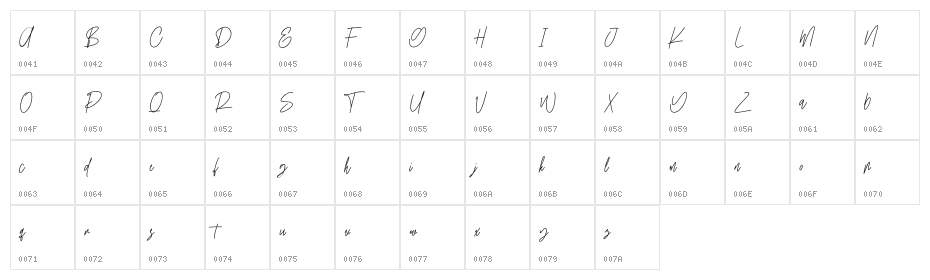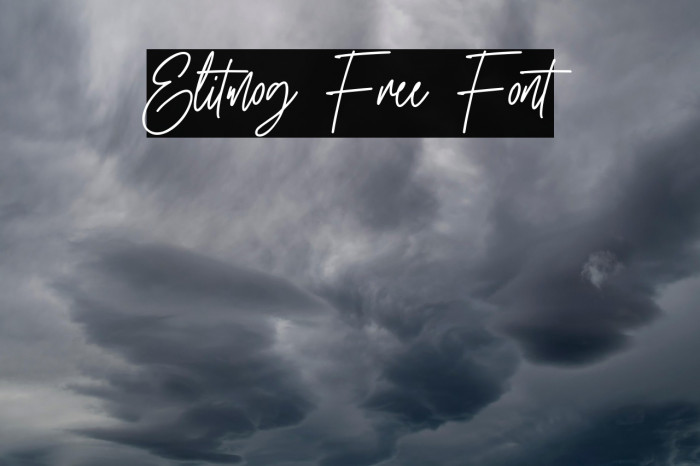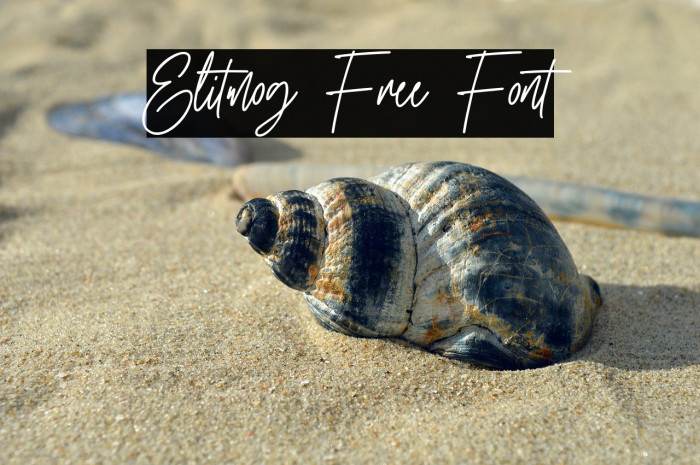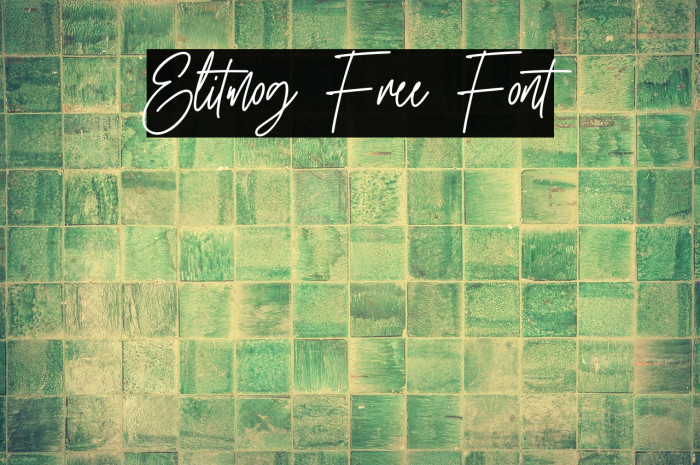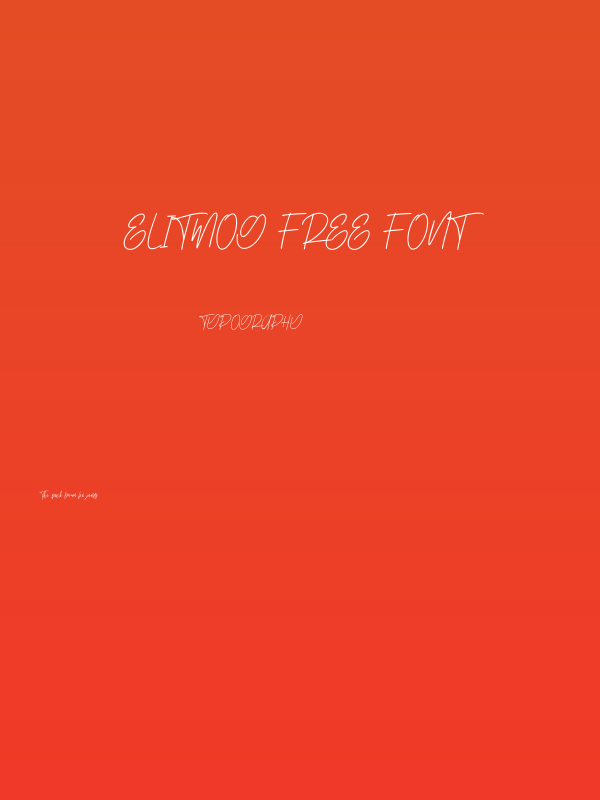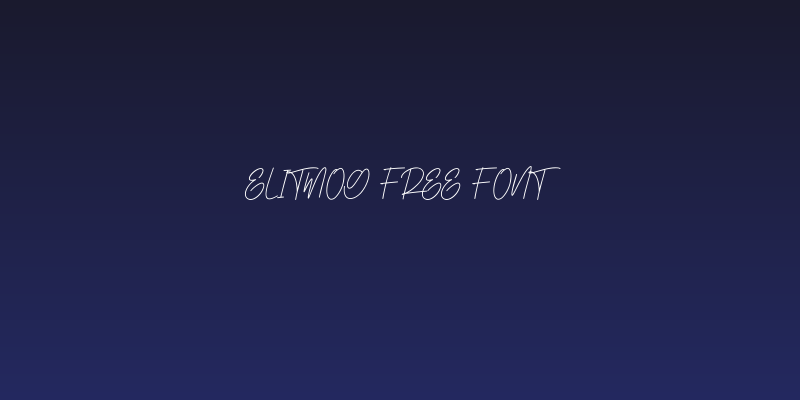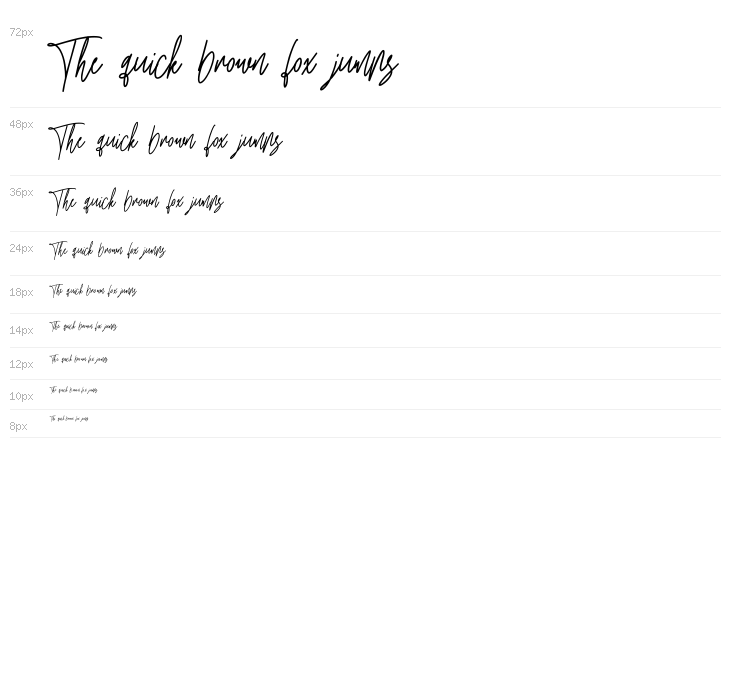
Elitmog Free Font Font
Elitmog Free Font Description
This font features a stylish, handwritten script with a modern flair. The characters are elegantly elongated, with a consistent slant that gives it a dynamic and fluid appearance. The strokes are thin and delicate, providing a light and airy feel. The uppercase letters are bold and prominent, while the lowercase letters maintain a cohesive flow, enhancing readability. The font's overall aesthetic is both sophisticated and approachable, making it suitable for a variety of design contexts.
| Use Case | Logos, Invitations, Social Media |
| Proposed Projects | Ideal for wedding invitations, personal branding, social media graphics, and elegant packaging designs. |